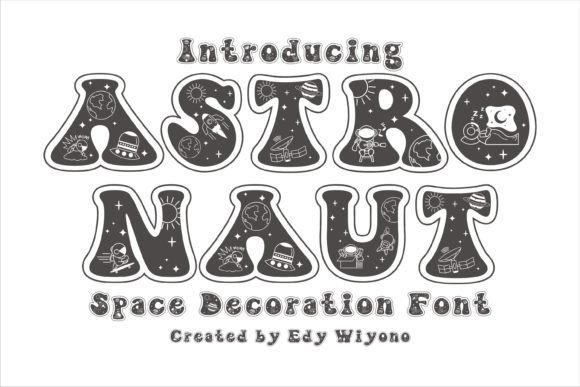
Journey to the cosmos with Astronaut Font, the captivating decorative font that ignites imagination and fuels creativity. Step into a realm of stars, rockets, and planets, where your designs take flight. Astronaut Font is not just a font; it's an adventure, a voyage to inspire and intrigue.
Picture your designs adorned with this enchanting font, where every letter is a portal to a child's imagination. Let your words dance across the page, carrying dreams of space exploration, alien encounters, and interstellar wonders. Captivate young minds with the playful curves and whimsical shapes of Astronaut Font, sparking their curiosity and igniting their passion for learning.
From school projects to birthday invitations, storybooks to posters, Astronaut Font is the perfect companion for all your creative endeavors. Its versatility knows no bounds, adapting seamlessly to any design theme or concept. Let your imagination soar as you create logos, branding materials, social media posts, and website designs that are out of this world.
With Astronaut Font, you'll have the power to create designs that leave a lasting impression. Your audience will be mesmerized by the charm and uniqueness of this font, making your projects stand out in a sea of ordinary designs.
So, embark on this extraordinary journey with Astronaut Font. Let your creativity reach new heights and create designs that are truly stellar. Shape a universe of words that captivates and enchants, leaving your audience spellbound.